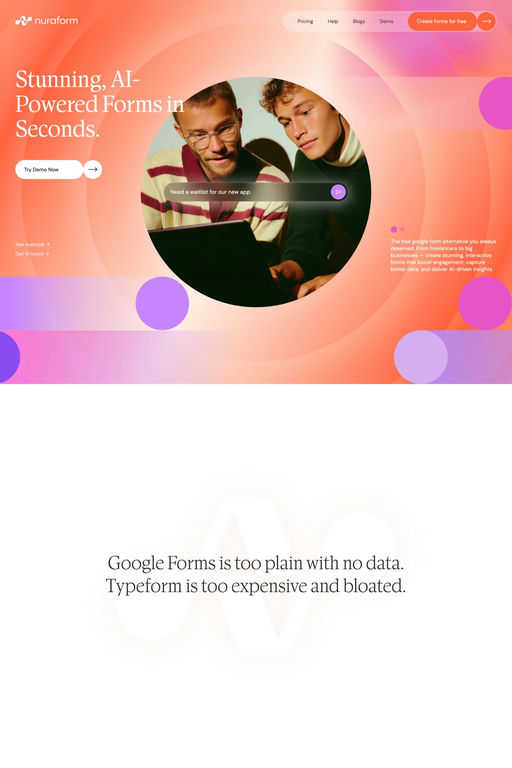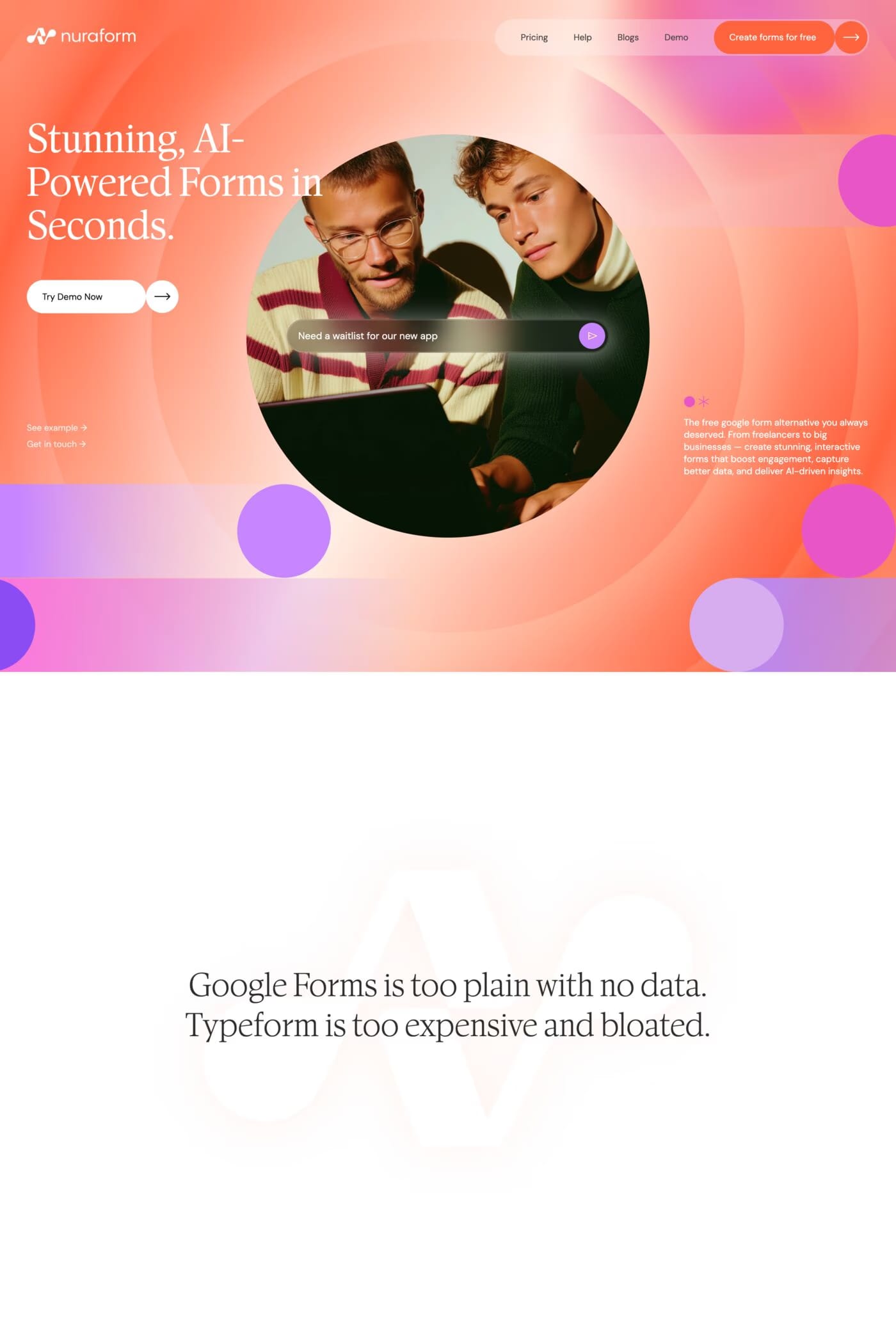
Antonia is a serif typeface from Typejockeys.
Antonia is an original type family of 46 fonts, 7 weights and 4 optical sizes, including text, display, and italic styles. Available in Variable font format.